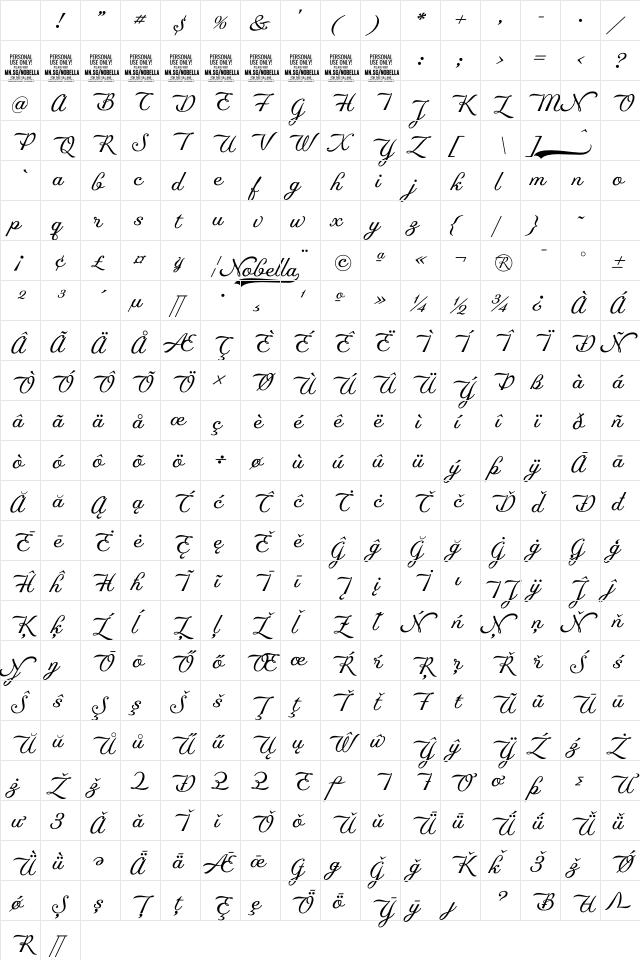
Complete Nobella PERSONAL USE ONLY Regular glyph index. Displaying only characters natively supported by Nobella PERSONAL USE ONLY Regular font.
Nobella PERSONAL USE ONLY is a composed and adaptable typeface that performs quietly and consistently across a wide range of design contexts.